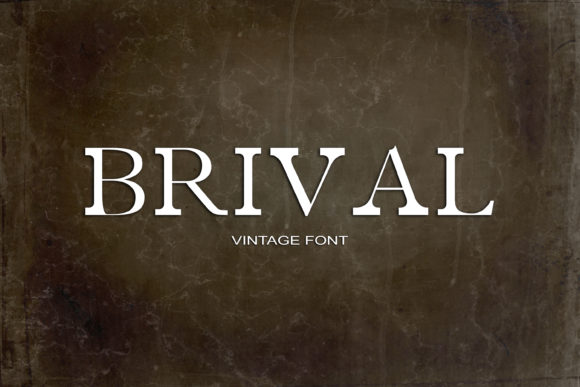
There are plenty of brands that are only memorable because of their beautiful, unique logo. You know that one brand that has an aesthetically pleasing logo that you can instantly recognize anywhere? The secret behind that? It's all about the font. Fonts have the power to make a brand memorable and distinct. They can evoke emotions, set the tone, and even influence purchasing decisions.
And if you are still not convinced, allow us to introduce you to Brival Font. This font is a modern serif font with a friendly twist that is sure to make your designs pop.
Brival Font is perfect for any design project that requires a personal touch. Whether you're creating a logo, branding materials, or even just a social media post, Brival Font will add a touch of class and sophistication. With its elegant curves and modern look, Brival Font is sure to be a hit with any design project.
Because with Brival Font, your fonts will not just be fonts. They will be a reflection of your brand's personality and style. They will be a way to connect with your audience on a deeper level. And they will be a way to make your brand unforgettable.